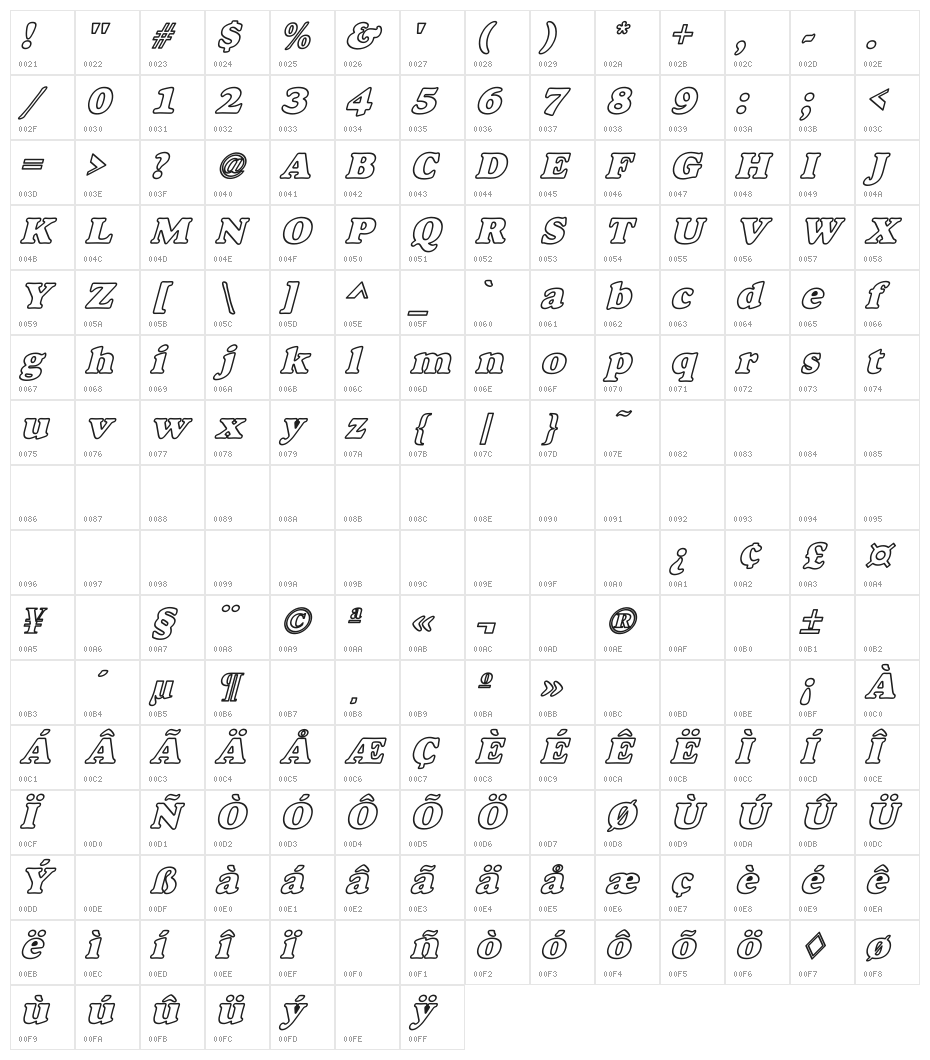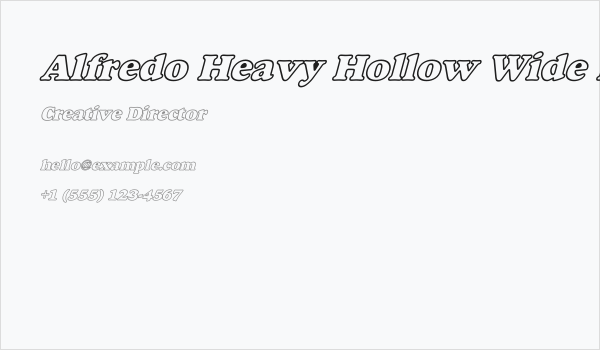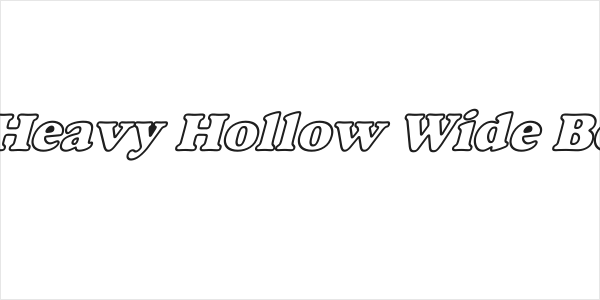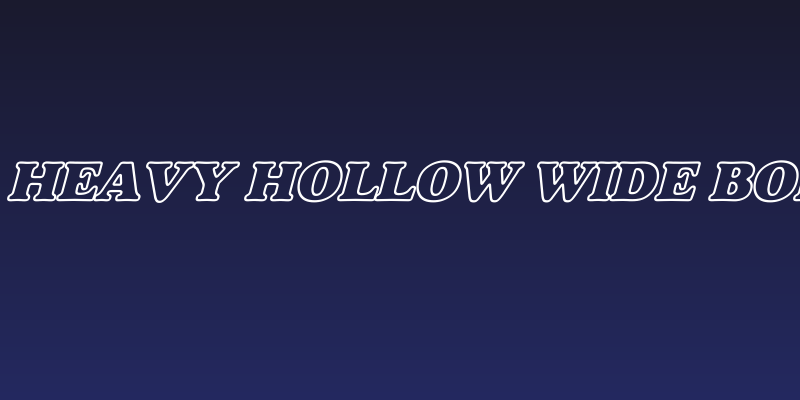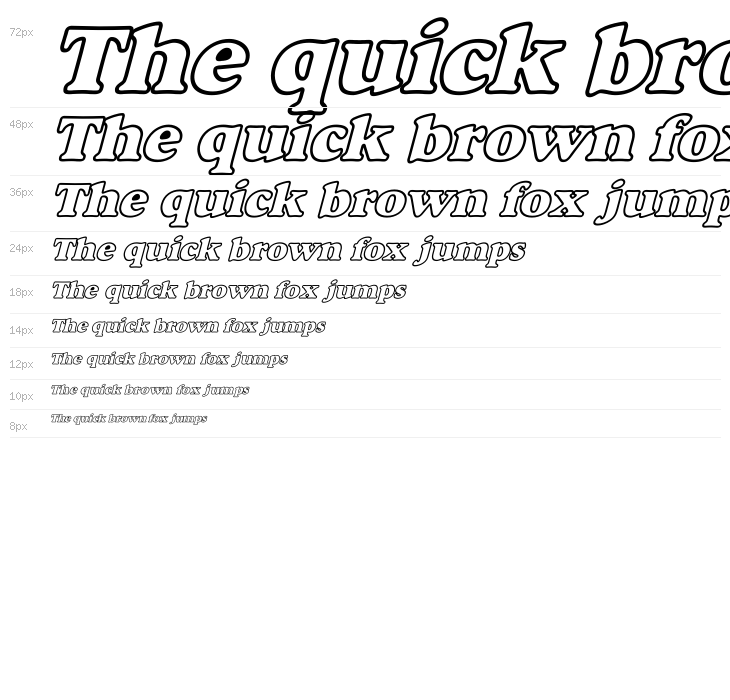
Alfredo Heavy Hollow Wide Bold Italic Font
Alfredo Heavy Hollow Wide Bold Italic Description
This font features a bold and hollow design, characterized by its wide and italicized letterforms. The uppercase and lowercase letters maintain a consistent style, with thick outlines that create a striking visual impact. The numbers and special characters follow the same design principles, ensuring uniformity across all glyphs. The italic slant adds a dynamic feel, while the hollow interior provides a unique aesthetic that stands out in any design. This font is perfect for projects that require a bold statement, combining both modern and decorative elements.
| Proposed Projects | Ideal for headlines, posters, branding, and any design needing a bold, eye-catching font. |